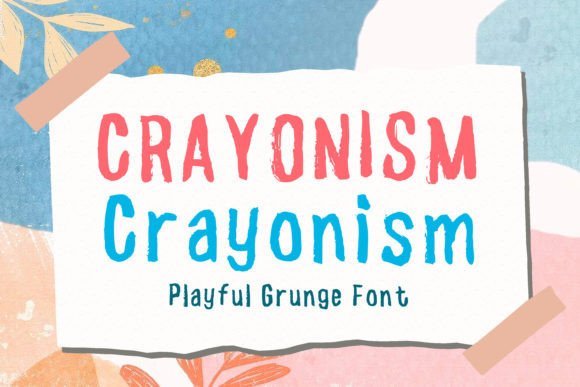
The Perfect Brushstroke: Discovering Crayonism Font
Who hasn’t scribbled away with a box of crayons as a child, bringing their imagination to life with vibrant colors and bold strokes? For many designers, this carefree creativity is the spark that ignites their passion for visual storytelling. If you’re looking to tap into that same energy and add a playful touch to your designs, look no further than the Crayonism Font.
This fun grunge font is designed to bring a sense of whimsy and playfulness to your projects, whether you’re working on a script, creating a comic, or designing a presentation. With its unique, hand-drawn aesthetic, Crayonism Font is the perfect choice for anyone looking to add a personal touch to their work. As a designer, you’ll appreciate the versatility of this font, which can be used in a wide range of applications, from kids’ themes and cartoons to business branding and school projects.
Crayonism Font Key Features
- Unique Characteristics: The font features a unique, hand-drawn style with subtle texture and imperfections, giving it a warm, organic feel.
Crayonism Font Review
As a designer, I was excited to dive into the world of Crayonism Font. I have to say, there are some things that really caught my eye ✨.
- Unique Character Shapes: The font’s bold, colorful character shapes are undeniably eye-catching. They add a playful touch to any text, making it perfect for creative projects.
- Versatility: Crayonism Font is available in various styles, from casual to formal, making it suitable for a wide range of applications, from children’s books to advertising campaigns.
- Colorful Options: With a vast palette of colors to choose from, users can customize their designs to fit their brand’s aesthetic.
However, as much as I love the Crayonism Font, there are some limitations I’d like to point out ⚠️.
- Lack of Legibility: While the font is visually appealing, its irregular shapes can make it difficult to read, especially in large blocks of text.
- Not Suitable for Body Text: Due to its playful nature, Crayonism Font is better suited for headlines, titles, or short quotes, rather than body text.
Overall, I think Crayonism Font is a great addition to any designer’s toolkit, but it’s essential to use it thoughtfully and in moderation. With its unique character shapes and versatility, it’s perfect for adding a touch of whimsy to your designs. Just be mindful of its limitations and use it where it truly shines.
For optimal results, use Crayonism Font in conjunction with bold or italic text to create a playful, hand-drawn effect. Experiment with different font sizes and colors to add visual interest to your design.
Common Use Cases for Crayonism Font
Crayonism Font is ideal for creating whimsical, child-friendly designs, such as children’s books, party invitations, and educational materials. It’s also great for adding a playful touch to business presentations, marketing materials, and social media graphics.